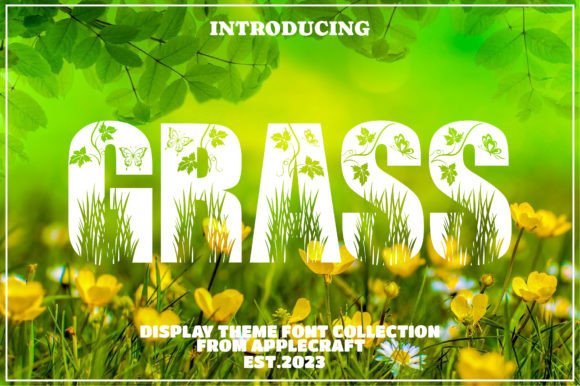
Get Ready to Mow Down Your Design Game with Grass Font
Have you ever been brainstorming a new project, and suddenly, a spark of creativity strikes? For designers, it’s that moment when everything comes together – the perfect color palette, the ideal font, and a dash of magic. That’s exactly what happens when you discover Grass Font, a thick-lettered display font that’s as unique as it is versatile.
Grass Font is designed to add a touch of whimsy and playfulness to your crafty ideas. Whether you’re working on a branding project, creating a social media campaign, or designing a wedding invitation, this font is sure to brighten up your designs. Its thick lines and quirky character make it a valuable addition to any designer’s toolkit.
Grass Font Key Features
- Unique Characteristics: Grass Font features a distinctive, hand-drawn style with a natural, organic feel, making it perfect for designs that require a touch of whimsy and personality.
Grass Font Review
Overall, I think the Grass Font is a nice addition to any design project. ✨ Its unique, natural feel makes it perfect for outdoor or earthy-themed designs. The font’s irregularities add a touch of personality and can help break up the monotony of more traditional fonts.
- What I like:
- Natural, earthy feel
- Unique irregularities
- What’s lacking:
- Limited character set (may not be suitable for extended text)
- Some characters may be difficult to read at small sizes
While the Grass Font excels in its unique charm and versatility, it’s not without its limitations. ⚠️ The limited character set and potential readability issues at small sizes are notable drawbacks. However, for the right project, the Grass Font can be a fantastic choice.
Overall, I’d give the Grass Font 4 out of 5 stars. It’s a fun, creative font that can add a lot of personality to a design project, but its limitations should be carefully considered before use.
Tips for Getting the Most Out of Grass Font
Grass Font is perfect for creating natural and earthy designs. Here are some tips to get the most out of it:
- Use it for outdoor-themed designs, such as park signs or gardening brochures.
- Pair it with earthy colors, such as green and brown, to create a cohesive look.
Grass Font is commonly used for:
- Outdoor advertising signs.
- Gardening and landscaping brochures.
- Environmental and eco-friendly branding.